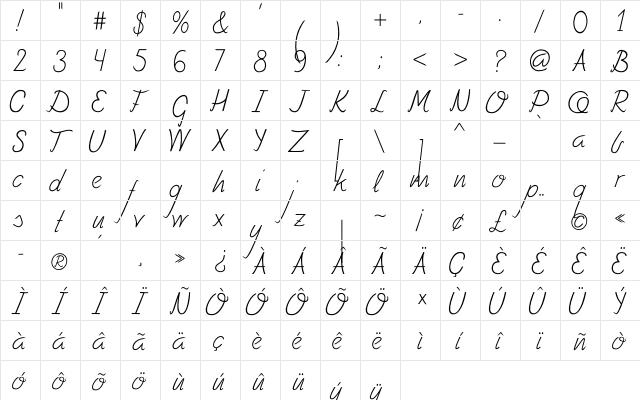
Fely Regular
Design Context for Fely Typeface
Fely is a composed and adaptable typeface that performs quietly and consistently across a wide range of design contexts.